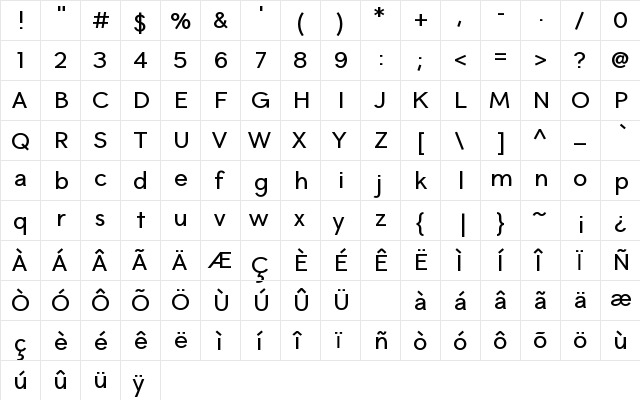
KingsHatBoldHMK Regular
Design Context for KingsHatBoldHMK Typeface
KingsHatBoldHMK offers clean, dependable letterforms without strong stylistic allegiance, making it a practical choice for designers who need flexibility. Its bold stroke weight gives it real presence on the page.